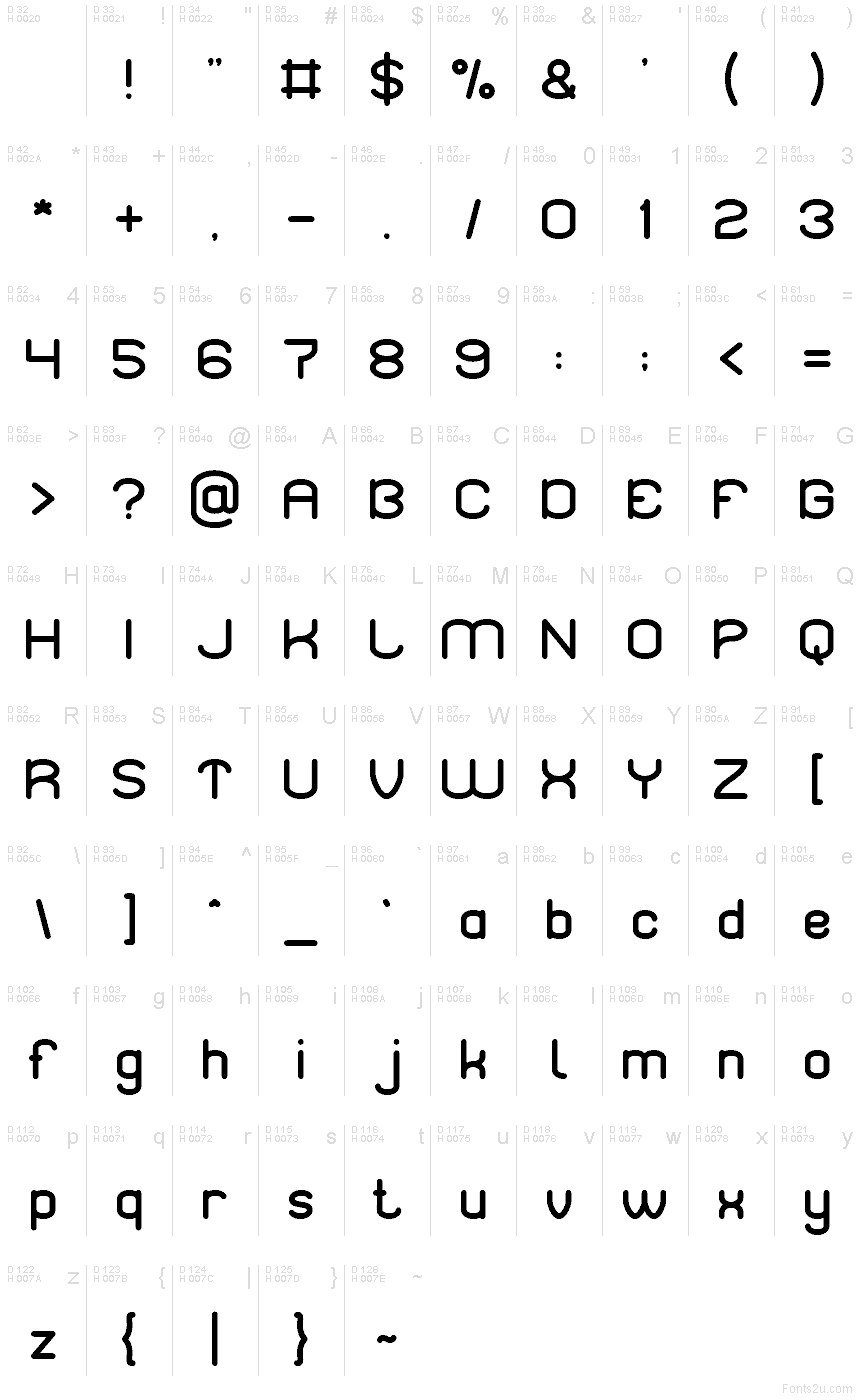
Storm Catcher
Storm Catcher font by weknow is a contemporary font merging geometric elements with smooth curves and clean lines. The modern appeal of this free font finds a balance between creativity and simplicity, making the typeface perfect for works that require some artistic expressions.
Made to reflect its environment, the versatile font looks equally good on posters, magazine covers and pages, websites, apps, branding designs as well as business identity cards. Other suggestions include books covers, social media visuals, packaging projects and products labels.